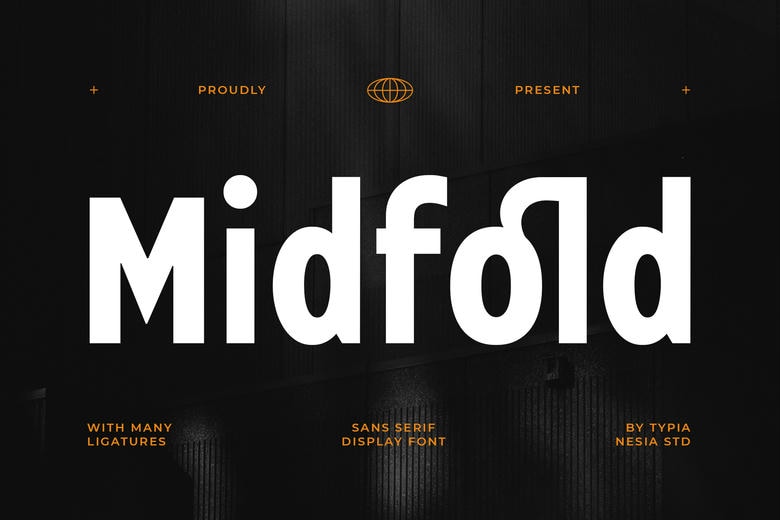
Midfold Font
Midfold is a modern sans serif display font designed to make a strong impact. With its bold weight and clean lines, it’s perfect for headlines, logos, branding, packaging, poster, advertising, sport, web design, merchandise and various display purposes. Midfold features unique ligatures that add a touch of distinctiveness and modern to your typography.
Midfold Sans Serif Font